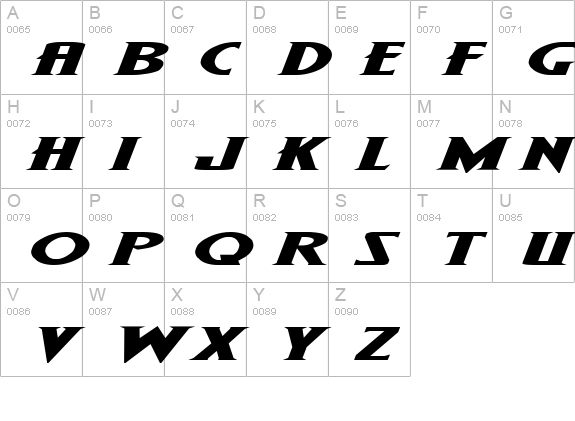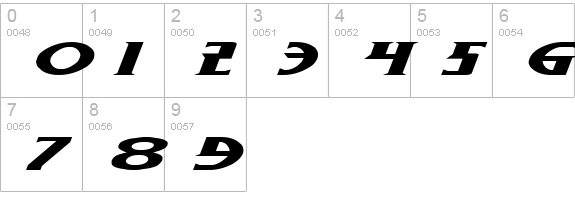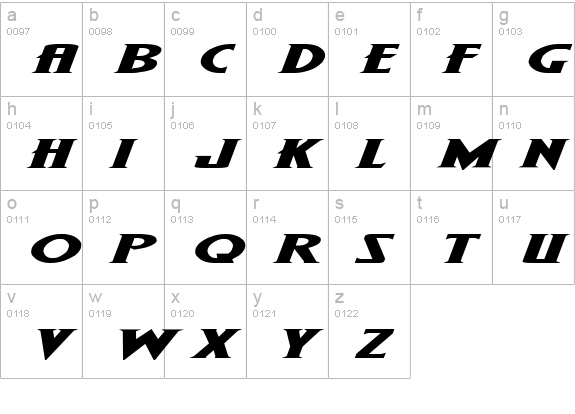
Wolf's Bane Expanded Italic is a distinctive, extended-width, italic variant in the Wolf's typeface family \xE2\x80\x94 well suited to design and typography projects.